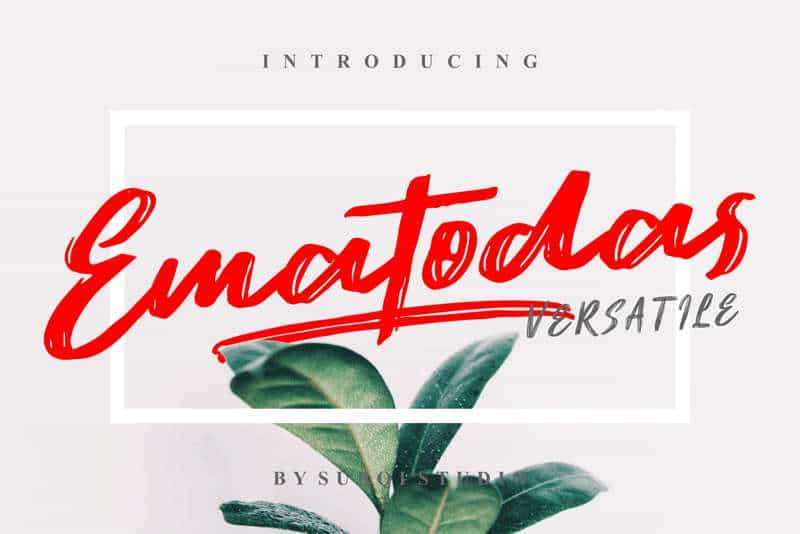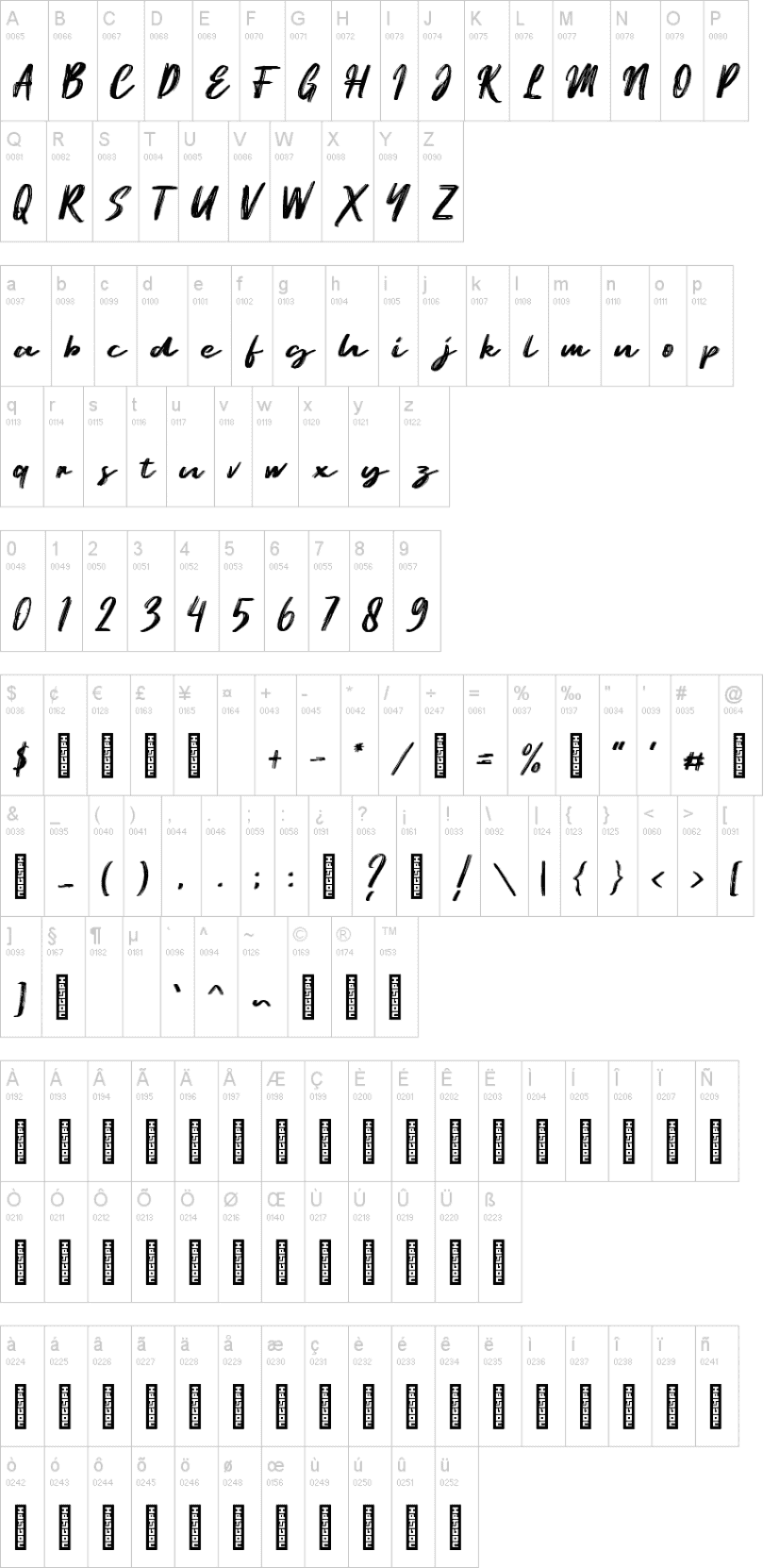
Discover Ematodas Font, part of the Brush collection—a versatile and unique font perfect for adding a personal touch to your projects. Download it for free and enjoy crafting designs with style, from invitations to social media posts. This font is available exclusively for personal use, giving you the freedom to create without limits. Unlock your creativity with Ematodas Font today!
Ematodas by Amir Subqi Setiaji; the house can be downloaded for free. Even the free version of this font supports small cases and some of the special symbols.